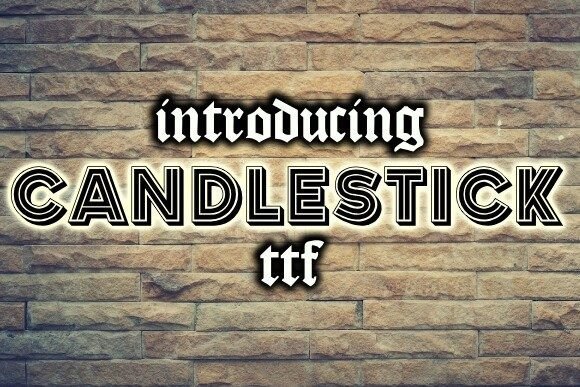
Introduction to Candlestick Font
Candlestick is awesome display typeface that will look great on any of Your designs.
Use this font on posters, flyers and t-shirts .